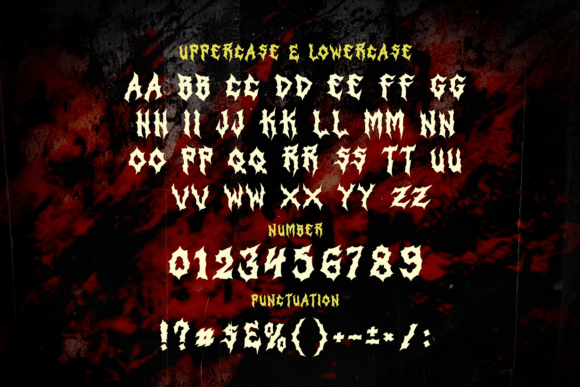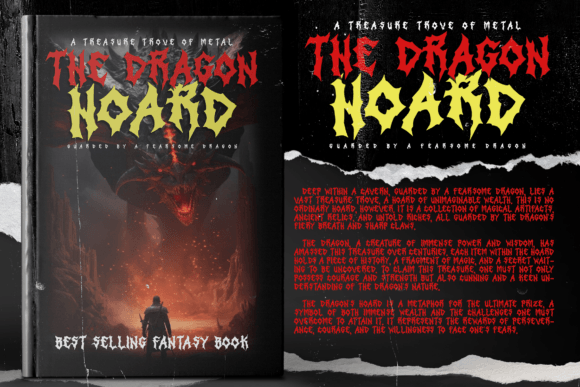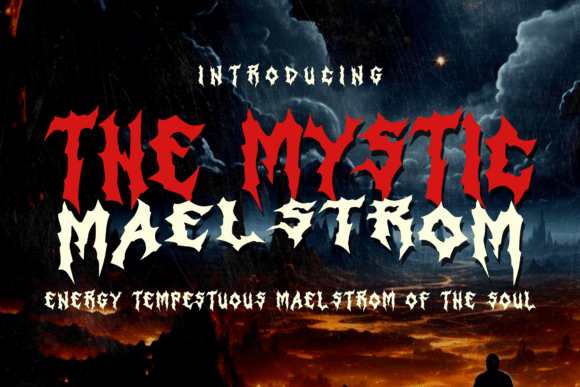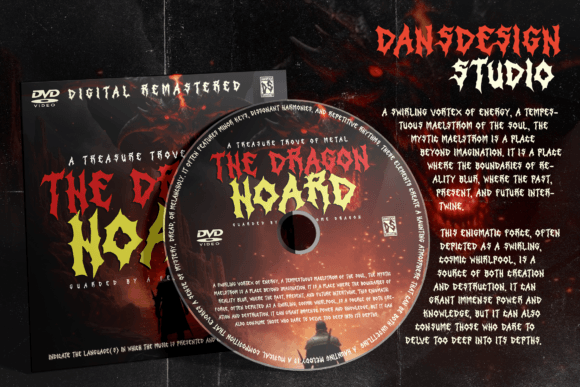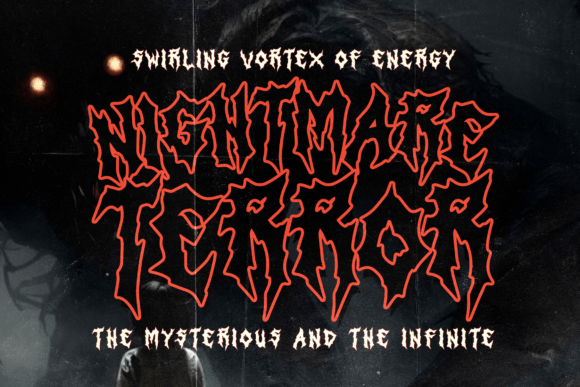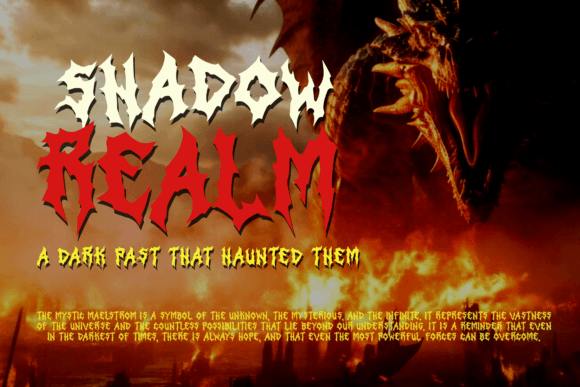
Introduction to Infernal Chaos Font
Remember the thrill of discovering that perfect font for your creative project? The one that takes it from ordinary to extraordinary? For designers, finding that elusive font can be a game-changer. It’s the difference between a bland design and a show-stopping masterpiece.
I still recall the moment I stumbled upon the Infernal Chaos Font, and my design world was forever changed. Its bold, edgy design seemed to leap off the page, demanding attention and evoking a sense of mystery. Inspired by the dark, powerful world of metal music and horror themes, this font is a true design resource for creatives looking to add a touch of high-quality, edgy flair to their work.
With its transparent background and sharp, blackletter design, the Infernal Chaos Font is the perfect choice for album covers, posters, and any project that requires a strong, mysterious vibe. And the best part? It’s available for a free download, making it an invaluable addition to any designer’s toolkit.
Key Features of Infernal Chaos Font
- Unique, high-quality design suitable for creative projects
- Supports transparent background for seamless integration into designs
- High-resolution font, suitable for print and digital applications
- Perfect design resource for those seeking an edgy, gothic aesthetic
Honest Review: Infernal Chaos Font
I recently stumbled upon the Infernal Chaos Font and was excited to give it a try. As a designer, I’m always on the lookout for high-quality design resources that can elevate my creative projects.
- ✨ The font’s unique, chaotic design makes it perfect for adding an edgy touch to your creative project.
- ✨ The high-quality design ensures that the font looks great at any size or resolution.
However, I do have a few limitations with the font:
- ⚠️ The font may not be suitable for projects that require a more traditional or conservative design aesthetic.
Overall, I’m really impressed with the Infernal Chaos Font. It’s a fantastic design resource that can add a lot of personality to your creative projects. With a little bit of creativity, you can use this font to create some truly unique and eye-catching designs.
How to Use Infernal Chaos Font
The Infernal Chaos Font is a unique, high-quality design resource perfect for creative projects that require a bold, eye-catching look. With its transparent background, this font can be easily applied to various backgrounds and designs.
To get the most out of the Infernal Chaos Font, experiment with different font sizes, colors, and combinations to create a unique look that suits your creative project. You can also use the font in conjunction with other design elements to create a visually appealing design.
The Infernal Chaos Font is ideal for use in creative projects such as posters, flyers, social media graphics, and websites. It’s also a great choice for designers who want to add a touch of boldness and sophistication to their designs.
The Dark Knight Font is a free, high-quality font suitable for creative projects that require a mysterious and dramatic feel. It’s ideal for use on a transparent background and can be downloaded for free. The Dark Knight Font is similar to Infernal Chaos Font in its edgy and bold style, but has a more refined and sophisticated appearance.
2. Darko Font
The Darko Font is a free, high-contrast font that can add a touch of darkness and elegance to any design. It’s perfect for use in creative projects where a bold and mysterious feel is required. The Darko Font has a similar edgy feel to Infernal Chaos Font, but with a more modern and sleek appearance.